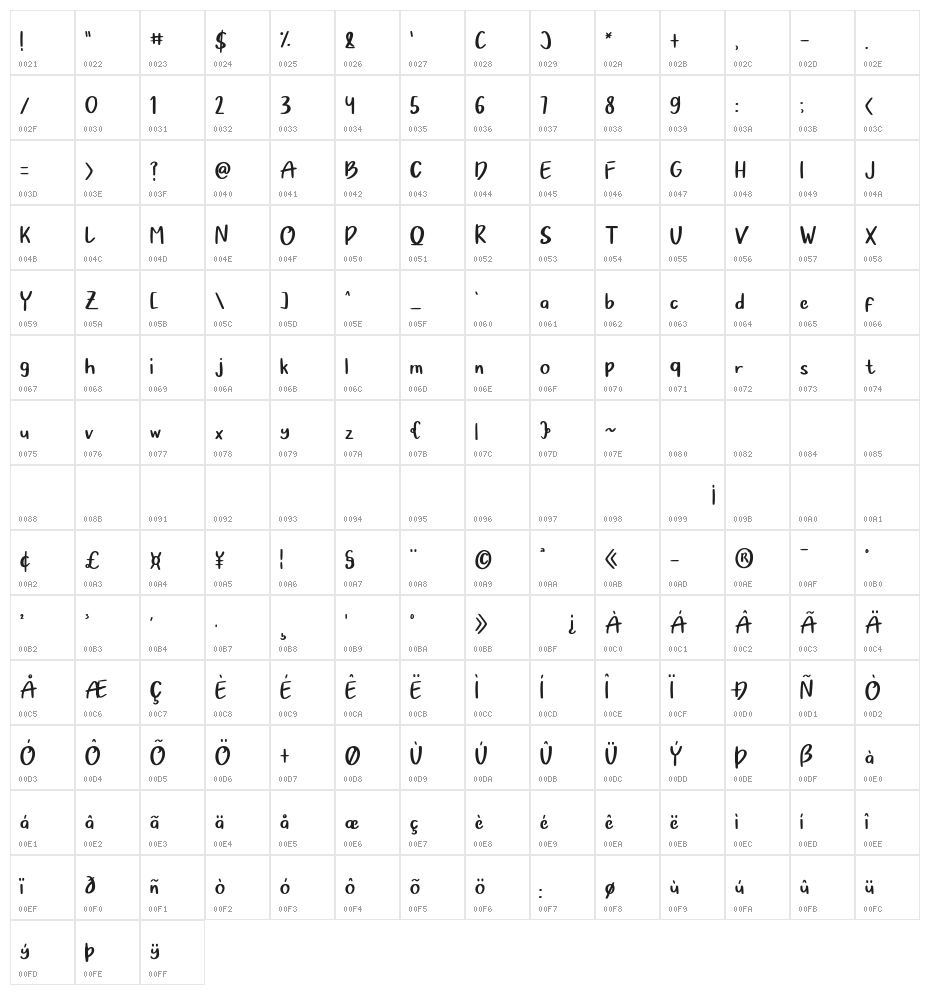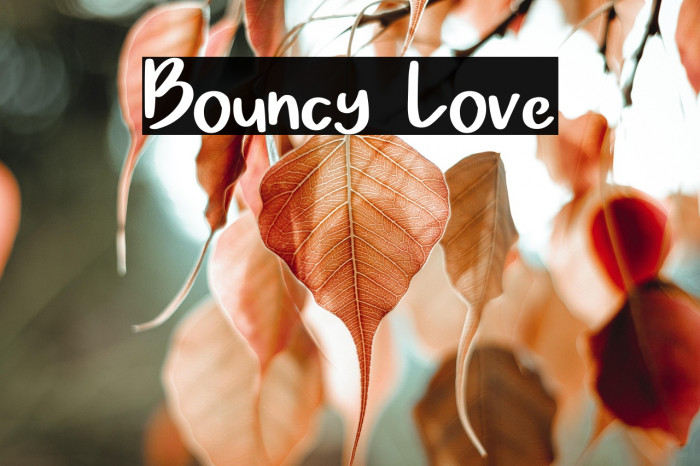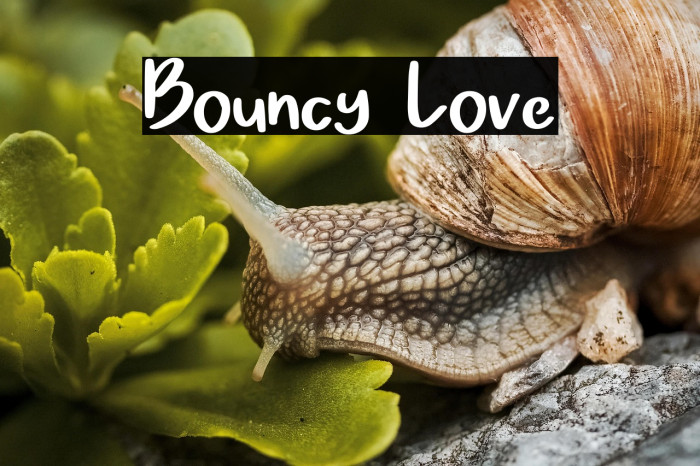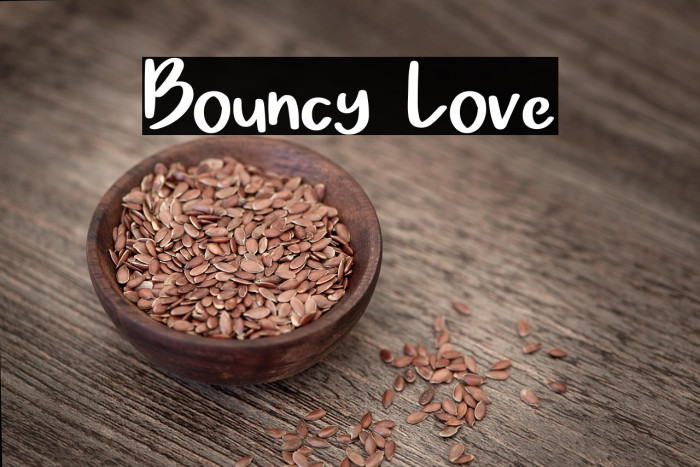
Bouncy Love Font
Bouncy Love Description
This playful and lively font features a handwritten style with a bouncy baseline, giving it a whimsical and friendly appearance. The characters are rounded and slightly irregular, enhancing its casual and approachable feel. The uppercase and lowercase letters maintain a consistent style, with smooth curves and a moderate weight that ensures readability. The numbers and special characters are designed to match the overall aesthetic, making it versatile for various applications.
Overall StylePlayful
Use CaseHeadlines, Logos, Informal Text
Proposed ProjectsIdeal for greeting cards, children's books, playful branding, and social media graphics.